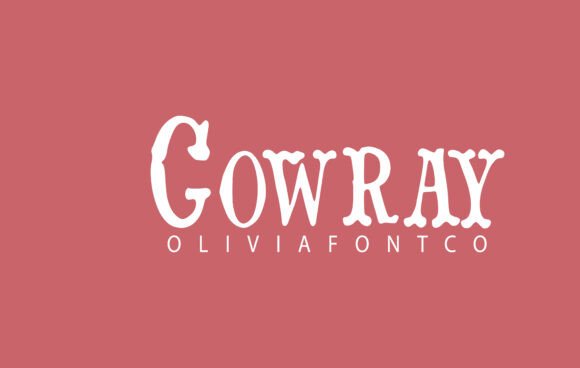
Cowray
The first time I saw Cowray, it felt like a quiet confidence. It’s not loud or flashy, but there’s a subtle strength in its lines and curves. The letters sit with a balanced rhythm, each stroke contributing to a sense of clarity and modernity. It’s the kind of typeface that makes you think of clean branding, minimalism, and thoughtful design. There’s no unnecessary flair—just a strong visual personality that feels both approachable and professional.
Cowray is a sans serif font, which means it lacks the serifs that adorn many traditional fonts. This makes it ideal for digital and print work where readability is key. Its structure is geometric yet fluid, allowing it to adapt well to a variety of applications. I immediately thought of using it for logo design, brand identity, and even social media graphics. It has a versatile character that can carry both a contemporary and slightly elegant vibe.
In real-life work situations, Cowray performs reliably. When designing logos, it offers a clean base that can be paired with other fonts for contrast. I’ve used it as a primary font in brand identities, especially for tech startups and lifestyle brands looking to project a modern, trustworthy image. On packaging, it works well for product labels and tags, adding a touch of sophistication without overwhelming the design. In editorial design, it holds up in headers and body text, maintaining legibility even at smaller sizes.
However, Cowray isn’t always the best choice. For large headlines or short phrases, it can feel a bit too reserved. That said, it’s not uncommon for a display font to be used in such contexts. I’ve found that pairing Cowray with a serif font can create a nice contrast, adding depth and richness to the overall composition. When working on web design, I always test it in black and white to ensure it remains readable under different conditions. Small-size readability is crucial, and while Cowray handles this reasonably well, it’s something to keep in mind when designing for mobile or print.
When considering brand consistency, Cowray offers a solid foundation. Its uniformity helps maintain a cohesive look across different materials and platforms. Audiences tend to trust fonts that are clear and consistent, and Cowray delivers on both fronts. It’s a great choice for businesses aiming to build a strong, recognizable brand identity. The font also supports a wide range of design assets, from Canva templates to Cricut projects, making it a valuable tool for creative professionals.
One thing I always recommend is testing fonts in different environments. Cowray looks good in most scenarios, but it’s important to review spacing and alignment. I’ve noticed that the letter spacing can sometimes feel tight, so adjusting it slightly can make a big difference. Also, comparing Cowray with other fonts—like a script or handwritten style—can help determine how it fits into a broader font pairing strategy. It’s not a font that dominates, but it can complement others beautifully.
For digital products, Cowray is a reliable choice. Whether it’s website headers, blog graphics, or social media content, it maintains a professional appearance. I’ve used it in digital ads where a clean, modern look was essential, and it performed well. However, for more decorative or expressive designs, I would consider other styles. Cowray is more about precision than playfulness, which makes it ideal for certain types of creative work.
In summary, Cowray is a font that deserves attention. It’s not just another option in the sans serif category—it’s a thoughtful, well-crafted typeface with a clear purpose. Whether you’re working on a brand identity, a packaging design, or a social media graphic, Cowray offers a dependable and stylish solution. Just remember to test it thoroughly, pair it wisely, and always respect its licensing terms.